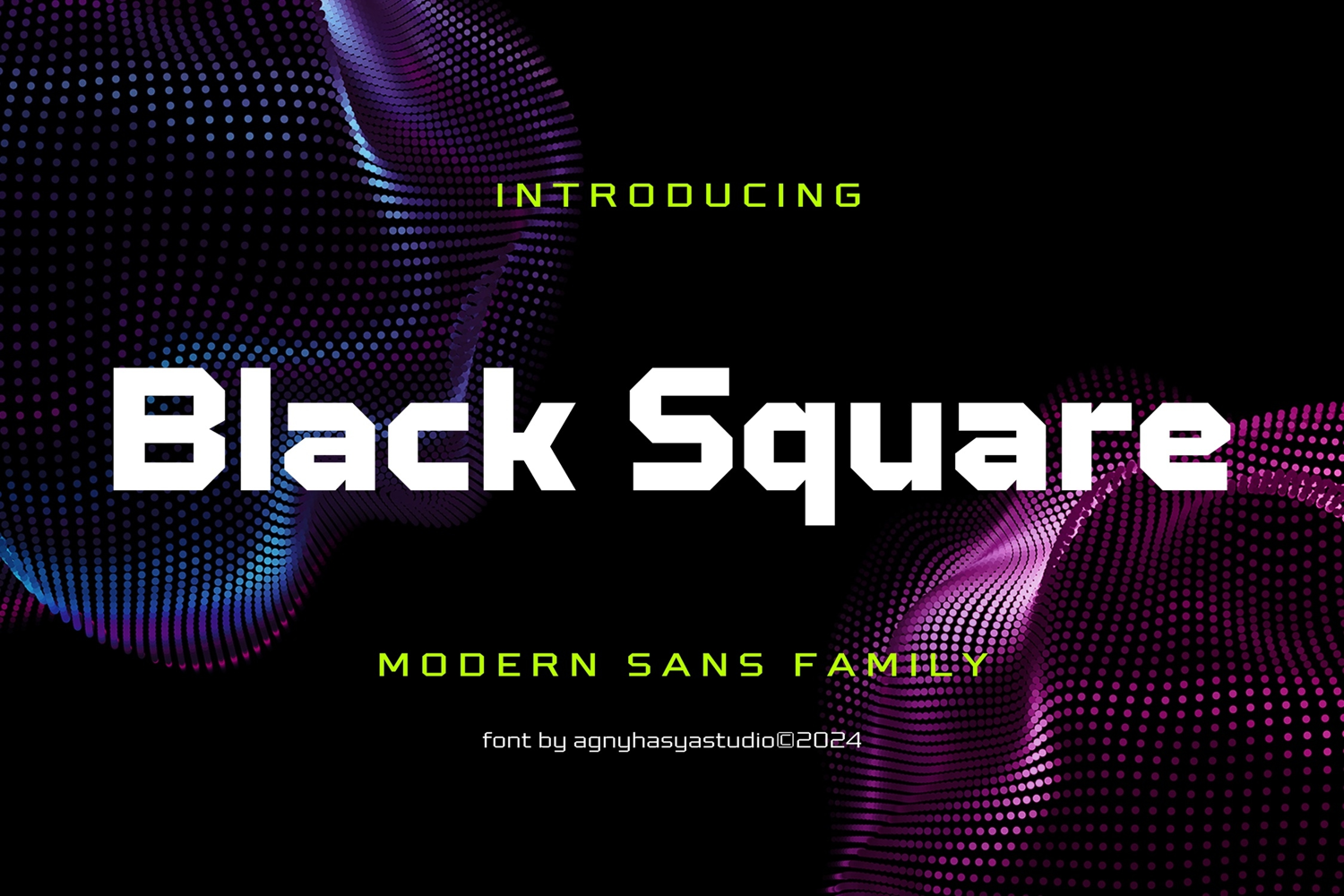
Black Square - Modern Sans Serif Font Family
Black Square is a modern sans-serif typeface family with a futuristic, clean, and professional look.
It includes uppercase and lowercase letters, numerals, punctuation, alternates, and ligatures.
Additionally, it supports multilingual characters, making it suitable for various languages.
Black Square is available in 12 font styles, including six upright weights (light, thin, regular, bold, black, and outline),
as well as italic style equivalents for all weights.
Versatile for various design projects, including logos, web design, UI design, advertising, business branding, marketing graphics,
banners, posters, digital displays, esports, games, futuristic technology concepts, and more.